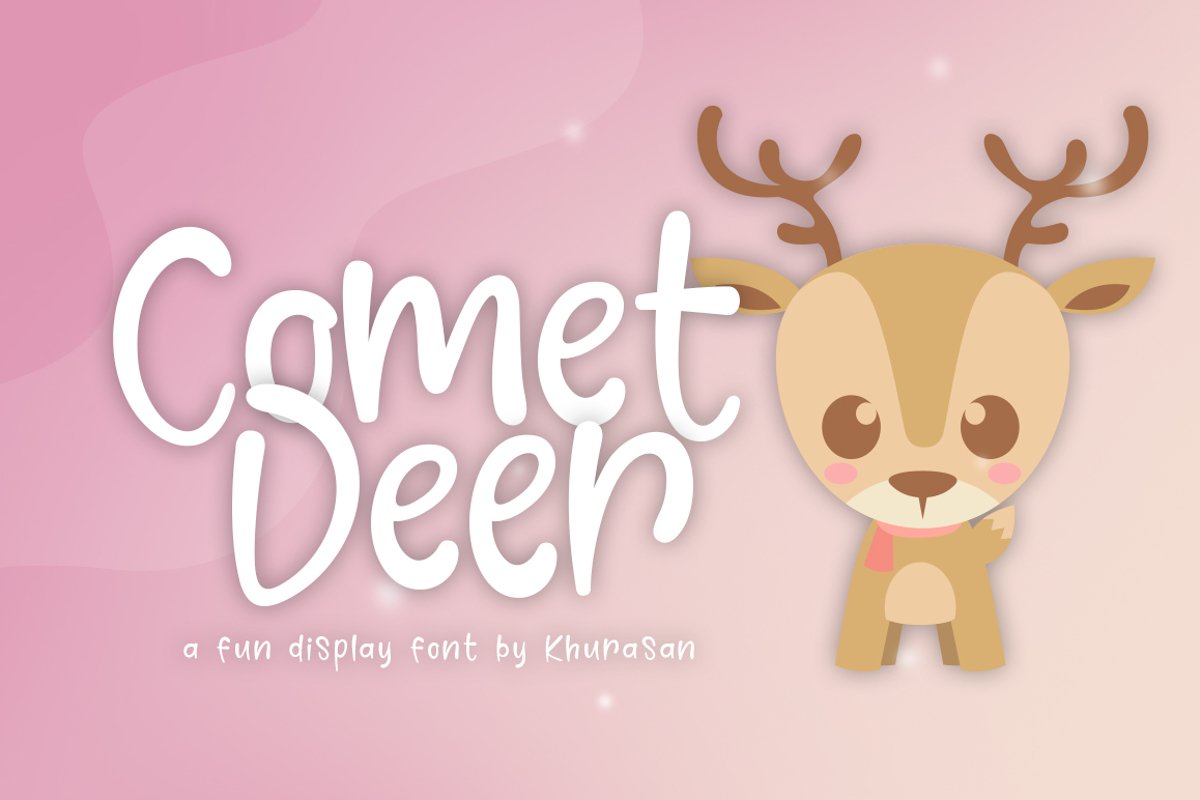
Introducing, Comet Deer font a fun display typeface with cheerful theme for your fun project. Comet Deer font suitable for logo, branding, greeting card, poster and any design that you create.